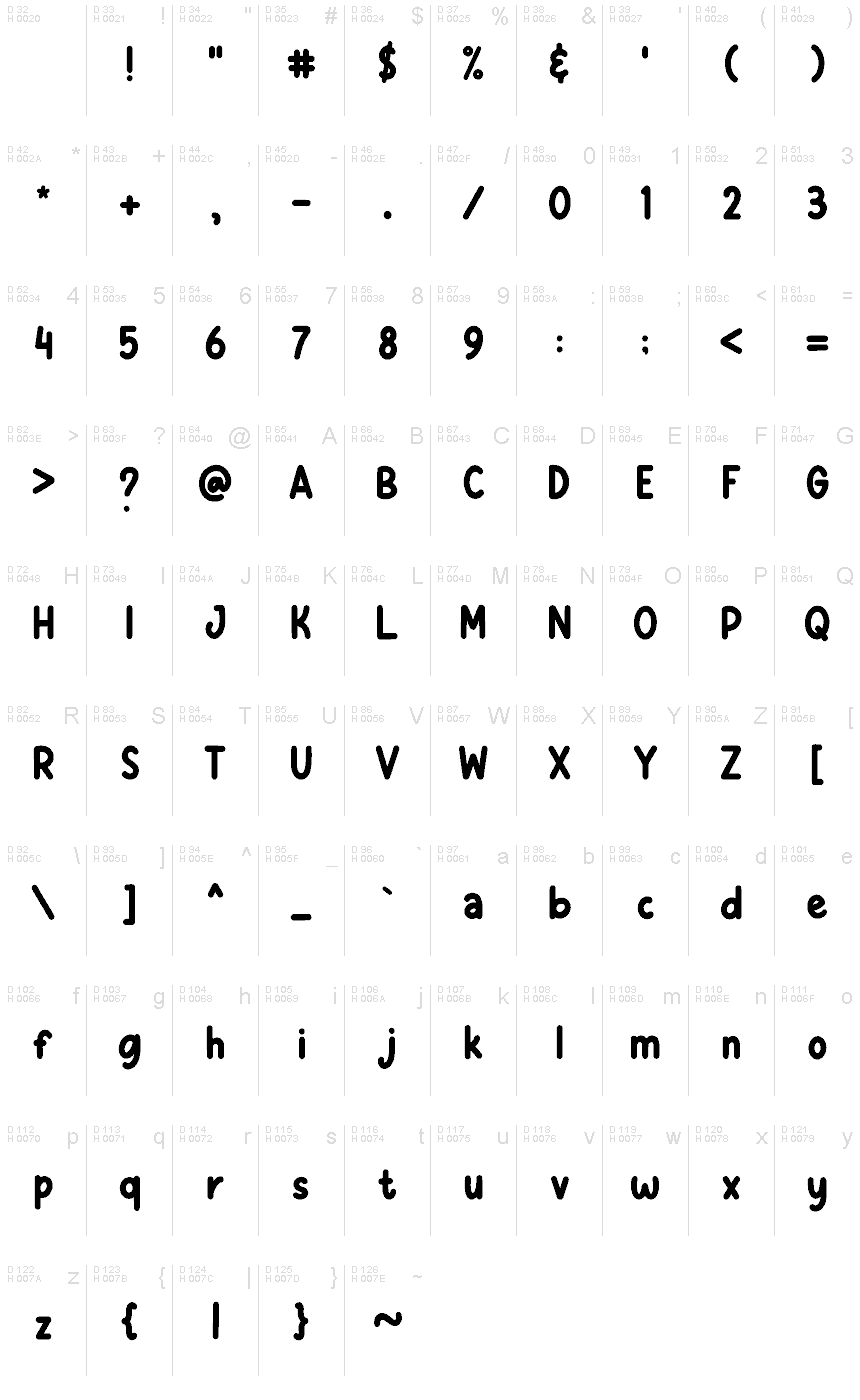
Workspace
Handwritten fonts have the power to inject vibrancy into a design and a playful touch into a serious brand. With minimal effort, a handwritten font can immediately add a fresh perspective to any project, and this is what we get with the free Workspace font.
It has a round and quirky character design that is ideal for headline texts, posters, banner displays, greeting cards, social media posts etc. It was created and shared by Mozatype who have made it available for personal use. If interested in a commercial license, you can check out their website and portfolio.